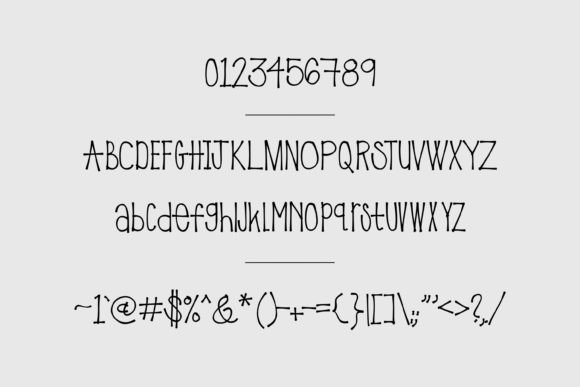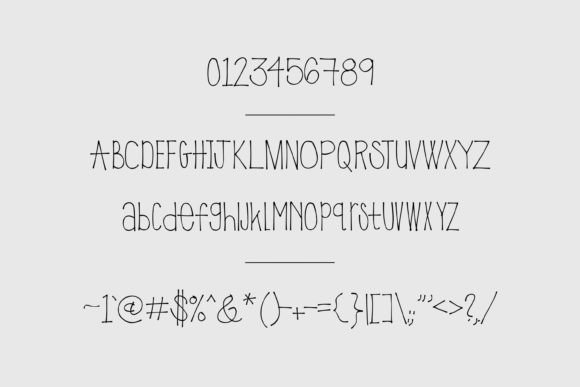
Introduction to Prickly Pear Font Font
Fonts play a crucial role in design, and the Prickly Pear Font font is a typeface that brings both character and versatility to any project. Whether you’re working on a branding project, a website, or a print design, the Prickly Pear Font font offers a unique style that can elevate your work.
Prickly Pear is a playful and quirky hand-drawn font that captures the rugged yet charming feel of desert landscapes.
With tall, slightly uneven lines, this font brings a natural and organic vibe to any project Perfect for titles, logos, and branding projects where a touch of desert warmth is needed.
Key Features of Prickly Pear Font Font
Why Choose Prickly Pear Font Font?
The Prickly Pear Font font is more than just a typeface – it’s a design tool that helps you communicate your message with style and clarity. Its unique character set and versatile design make it suitable for a wide range of applications, from elegant invitations to bold headlines.
With its carefully crafted letterforms and balanced proportions, the Prickly Pear Font font ensures readability and visual appeal across all mediums.
What makes Prickly Pear Font font special?
The Prickly Pear Font font stands out with its unique design, exceptional readability, and versatility across various design applications.